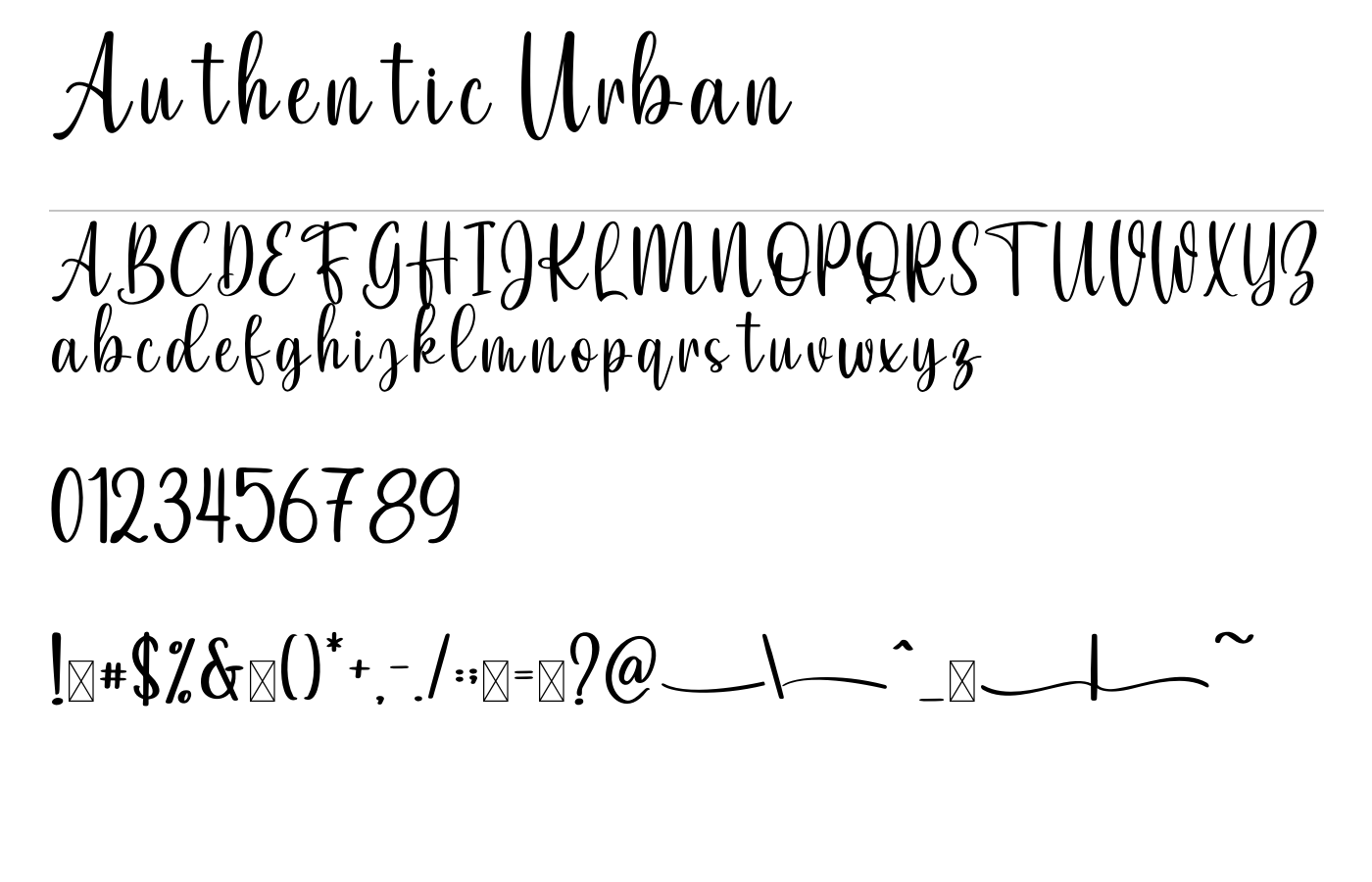
Authentic Urban is a charming script font with a casual, handwritten feel characterized by tall, slender letterforms and smooth, flowing strokes. Its slightly whimsical style with elegant curves makes it ideal for creative branding, invitations, and lifestyle projects that want to evoke a personal, approachable vibe. This font works beautifully in headlines and display settings, adding a warm and artistic touch to any design.
Authentic Urban Font
About Authentic Urban Font
| Font family | Authentic Urban Font |
| Designer | Rezha P. Dewanto |